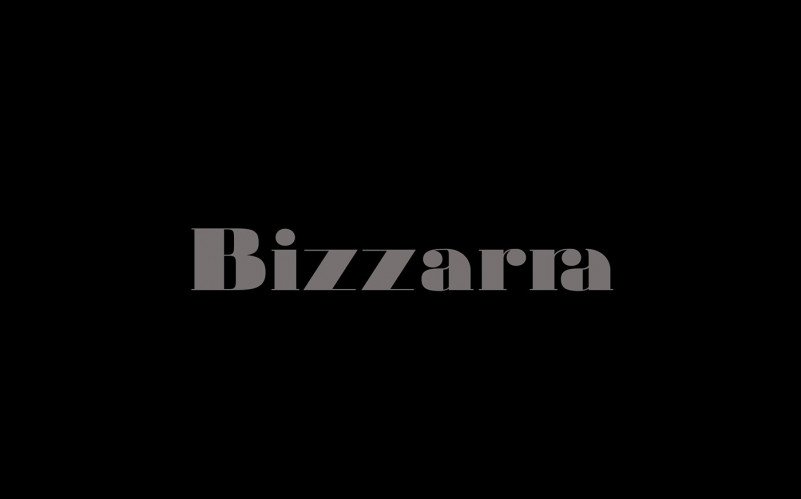
Bizzarra Serif Font Free
Bizzarra Serif Font is a modern serif typeface that was inspired by classic vintage serif fonts. This Font is a free luxurious serif font created by Wal Glezar. It features a unique contrast of heavy stems and ultra thin serifs for an eye catching look. Bizzarra has 235 characters that include: lowercase, uppercase, old-style figures, symbols and ligatures.